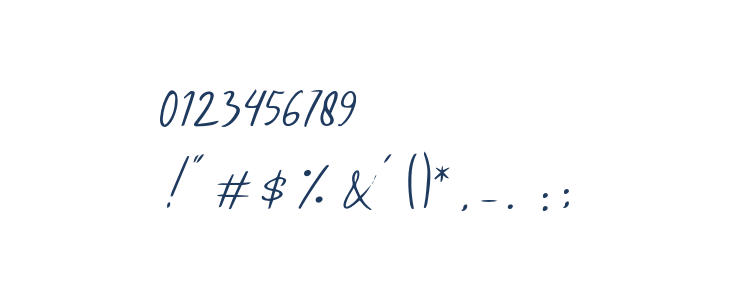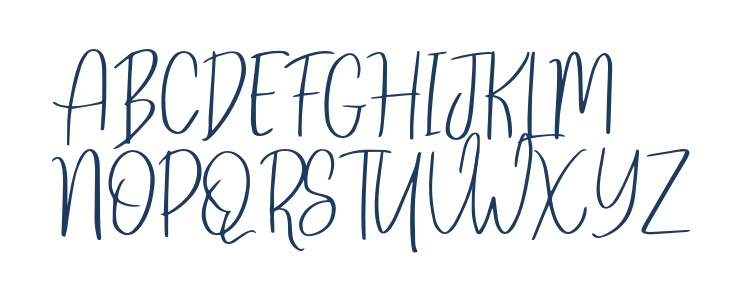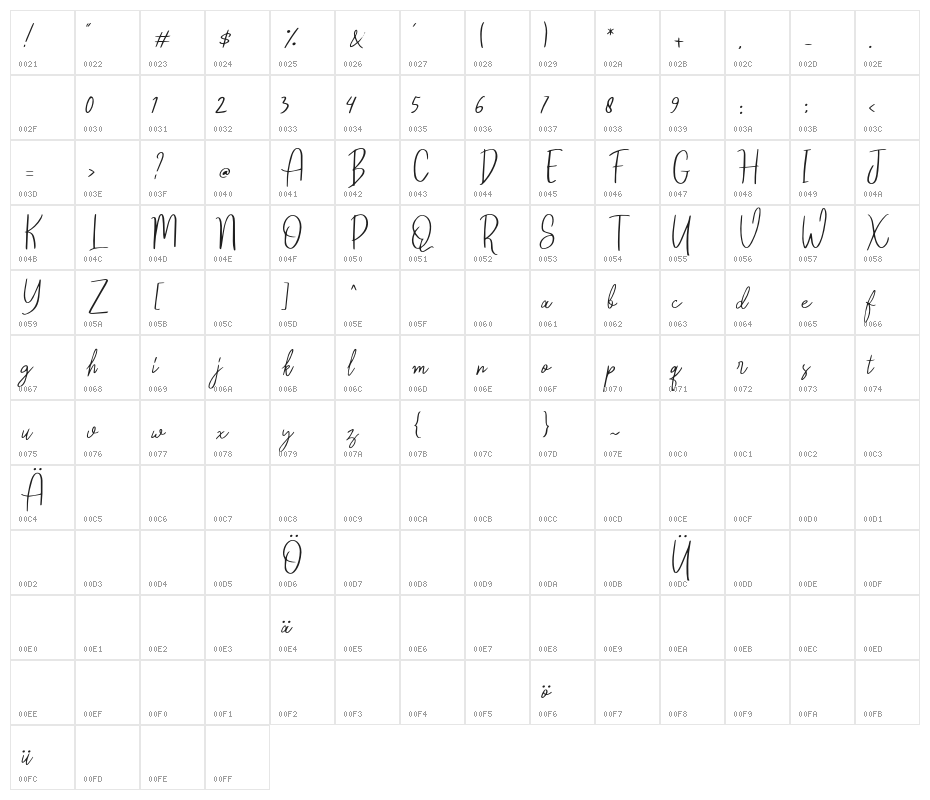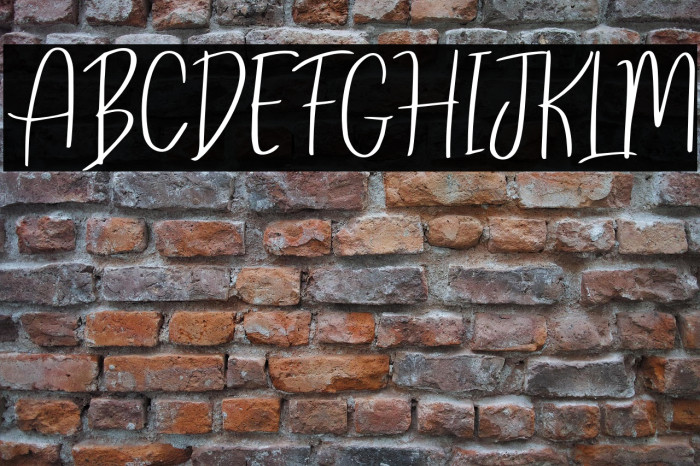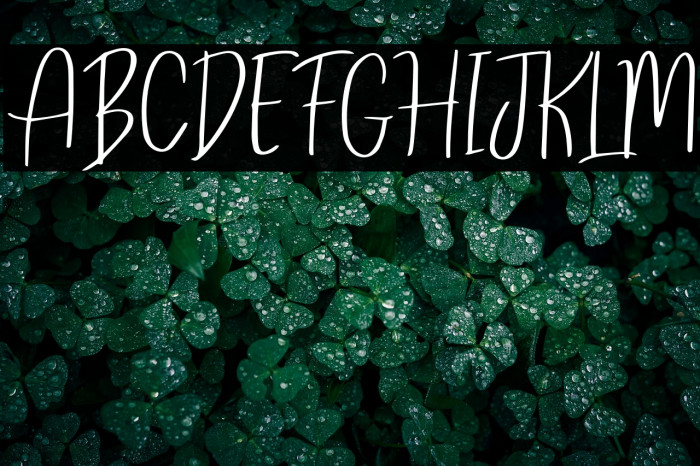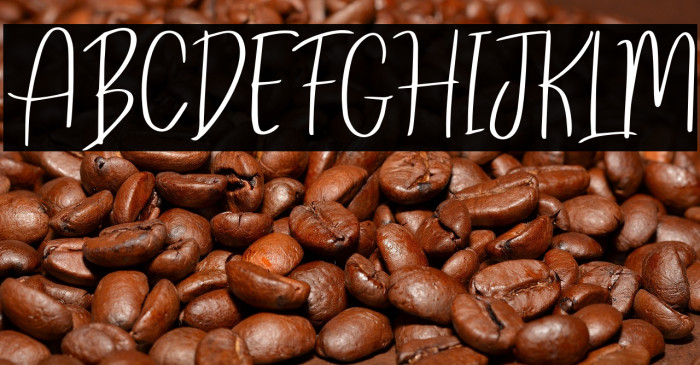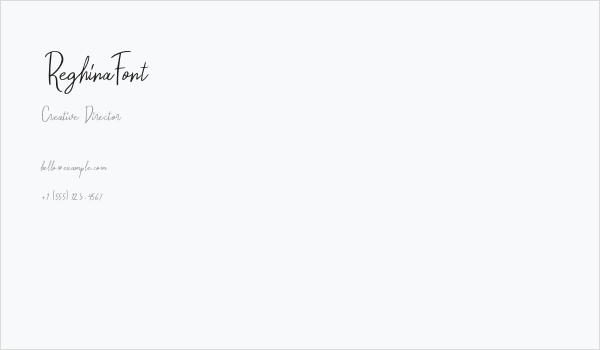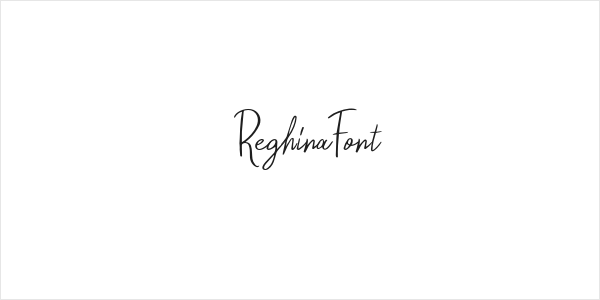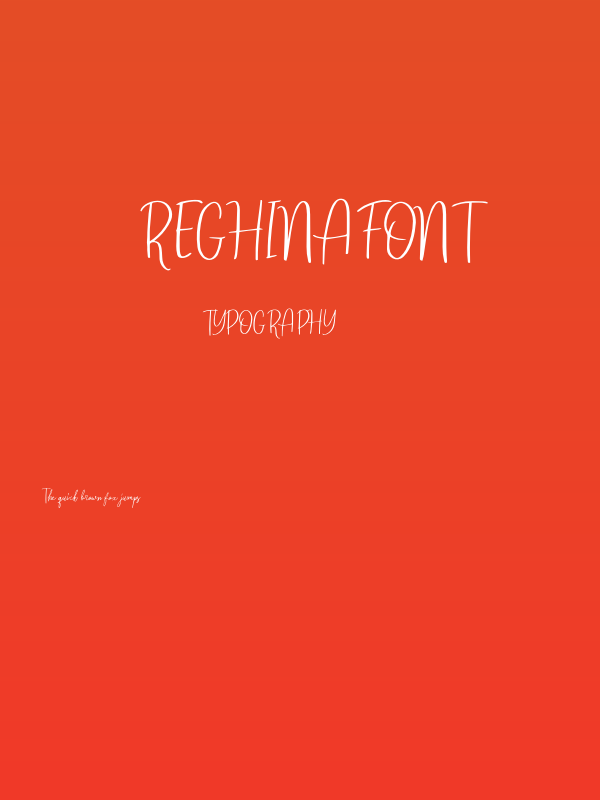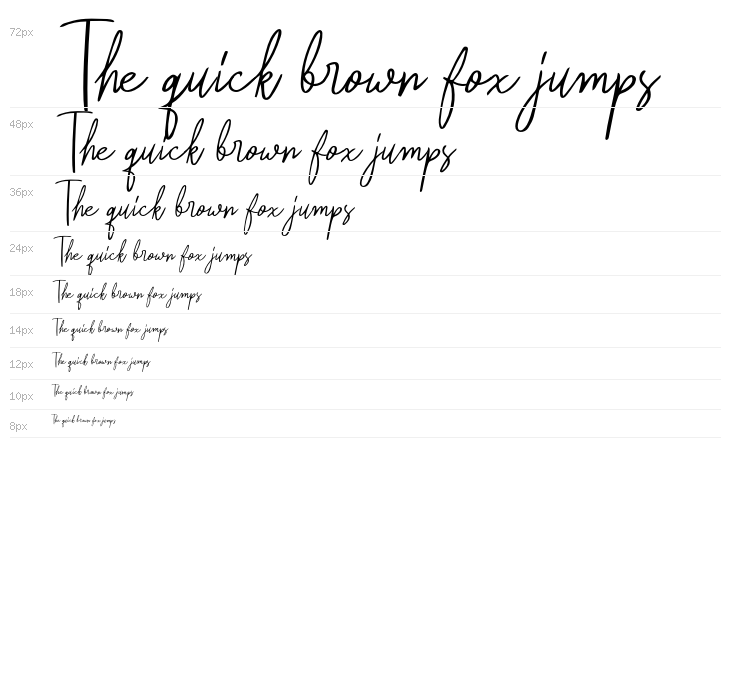
ReghinaFont Font
ReghinaFont Description
A handwritten script font with tall, narrow letterforms, featuring fluid, organic strokes and a casual, elegant appearance. The uppercase letters are particularly elongated and expressive, while the lowercase maintains a consistent slant and smooth connections.
| Overall Style | Decorative, Elegant, Casual |
| Use Case | Logos, Headlines, Invitations, Personal notes |
| Proposed Projects | Invitations, greeting cards, branding, quotes, social media graphics, personal projects. |